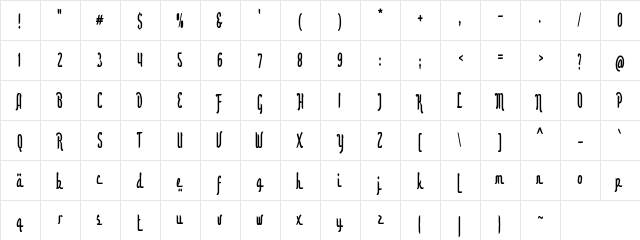
aAidilfitri Regular
| Designer | Wahyu Eka Prasetya |
Design Context for aAidilfitri Typeface
aAidilfitri is a composed and adaptable typeface that performs quietly and consistently across a wide range of design contexts.